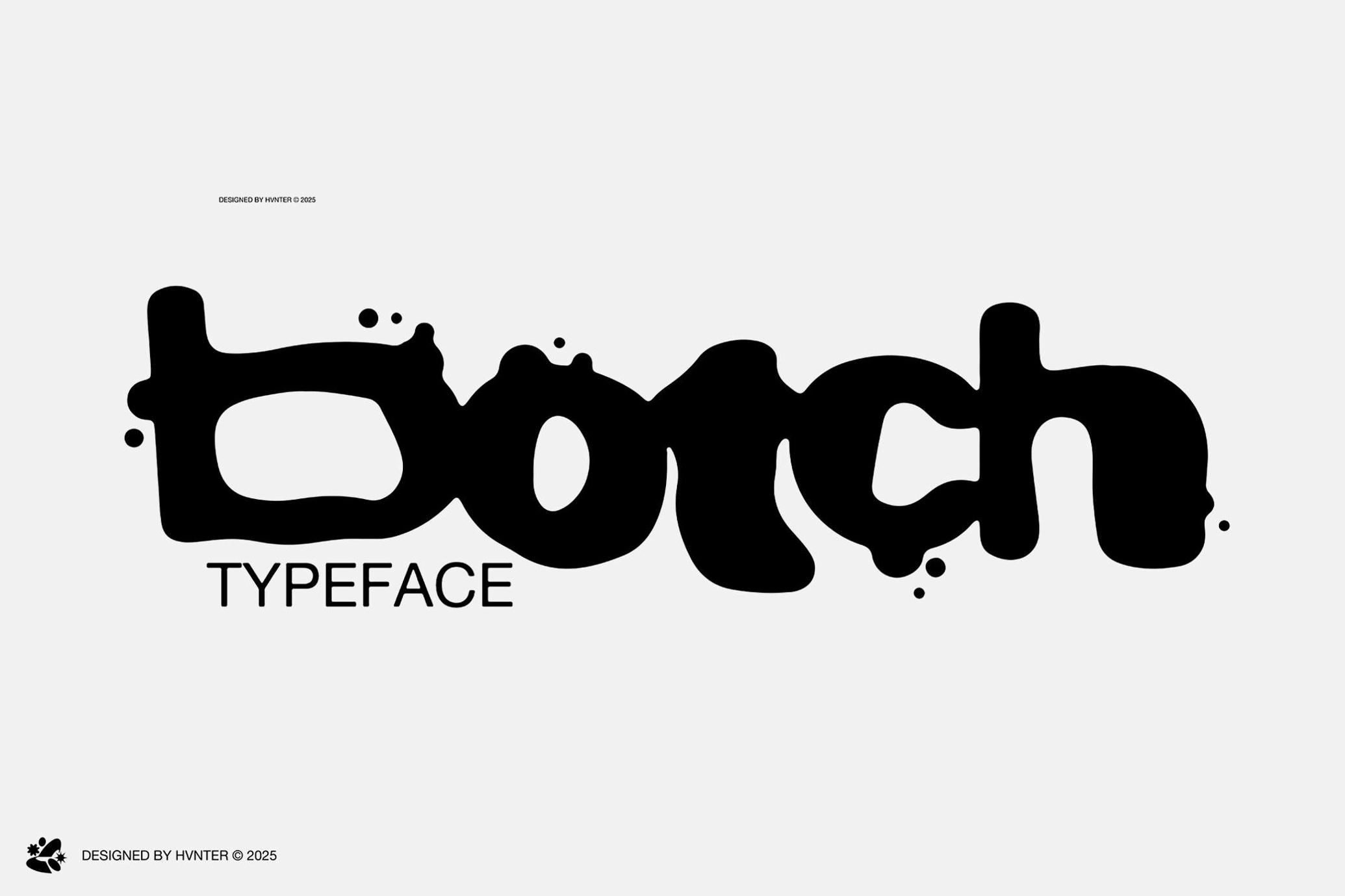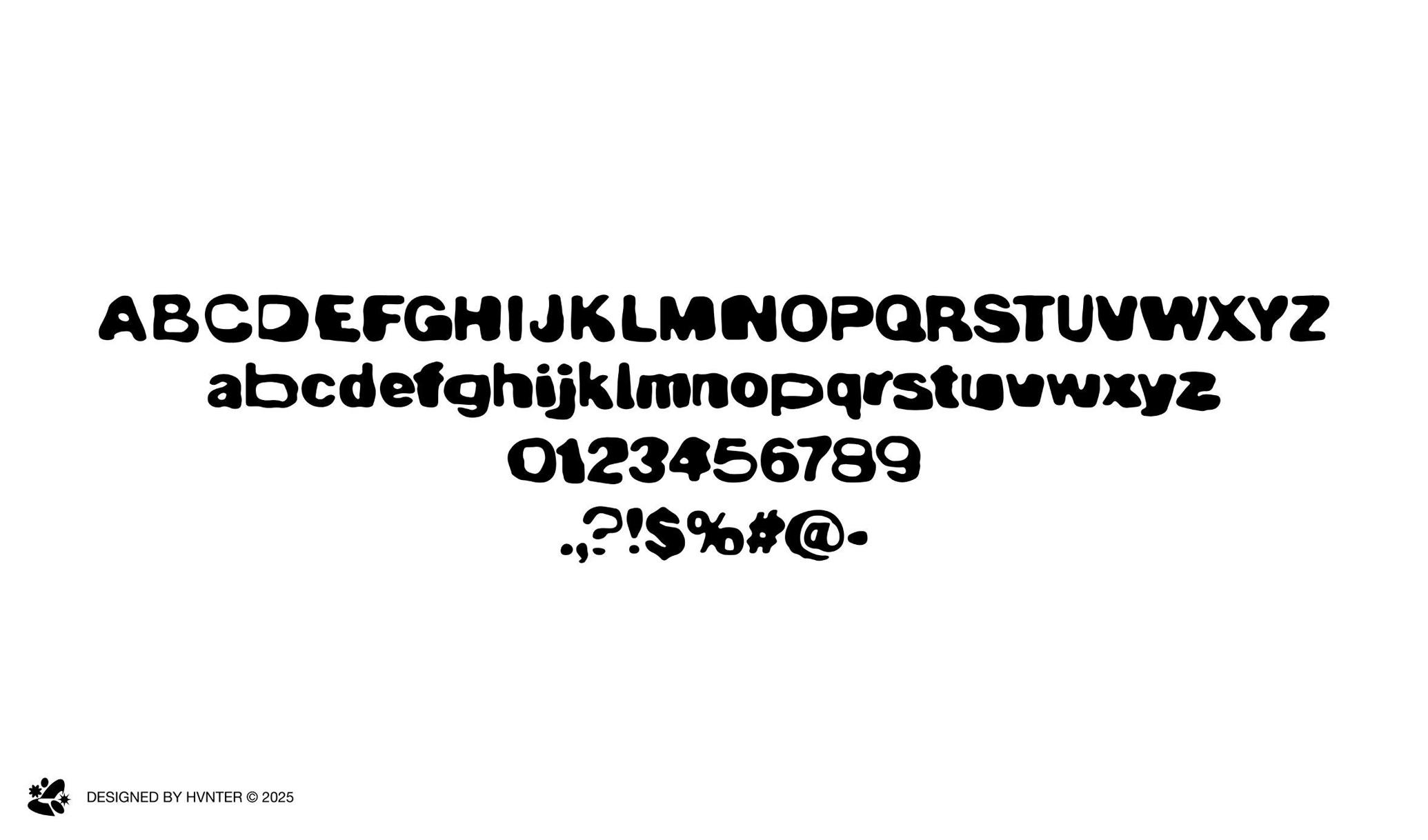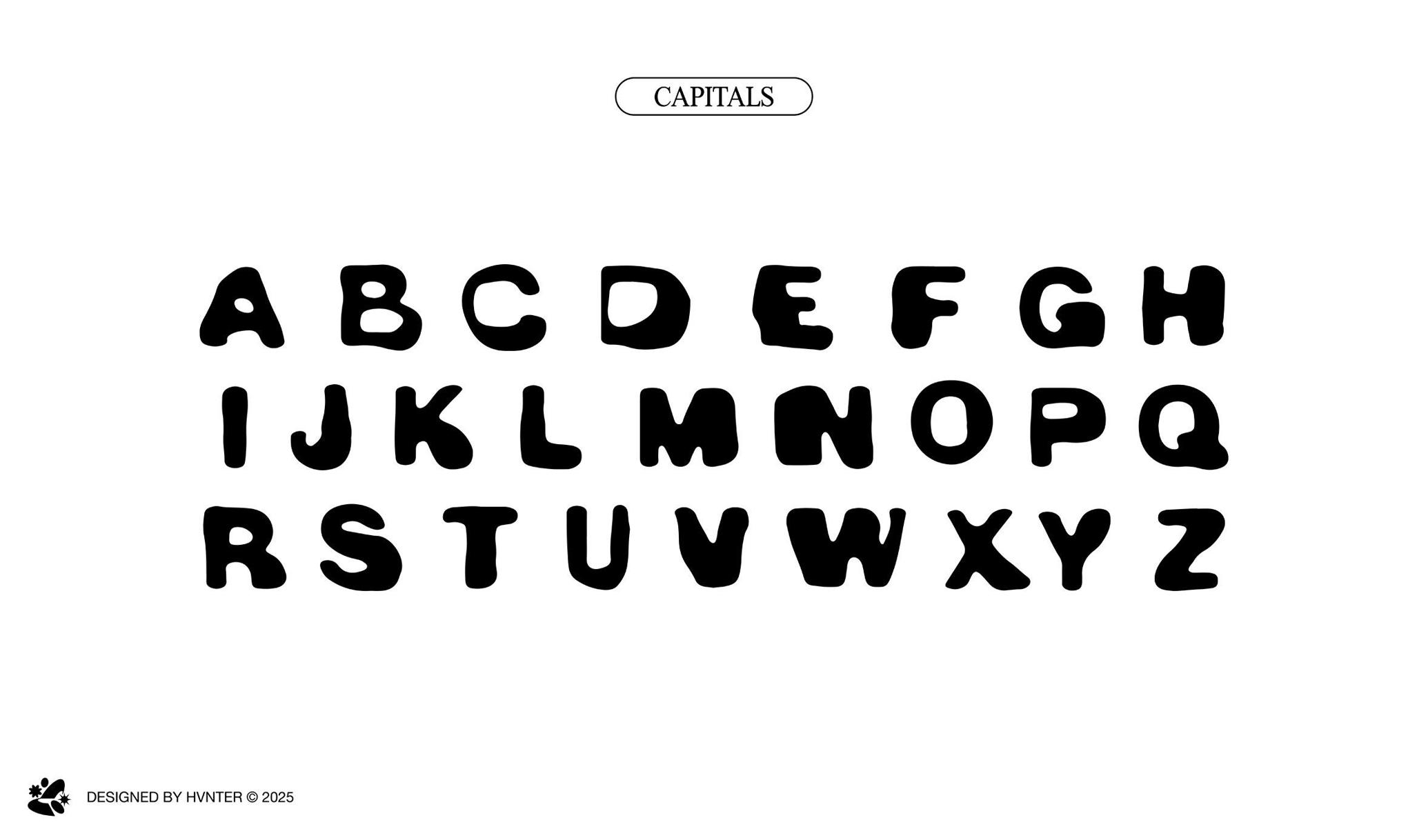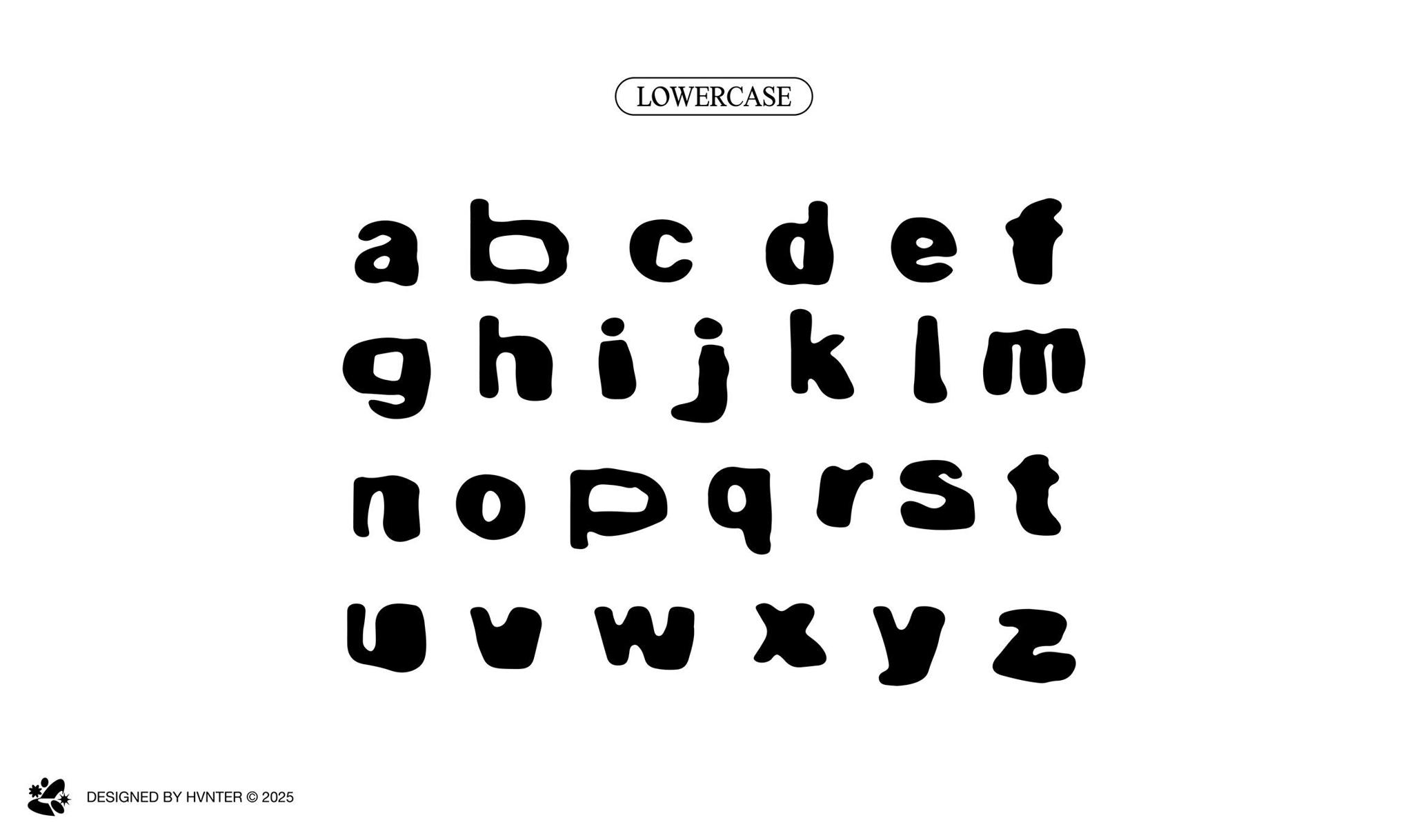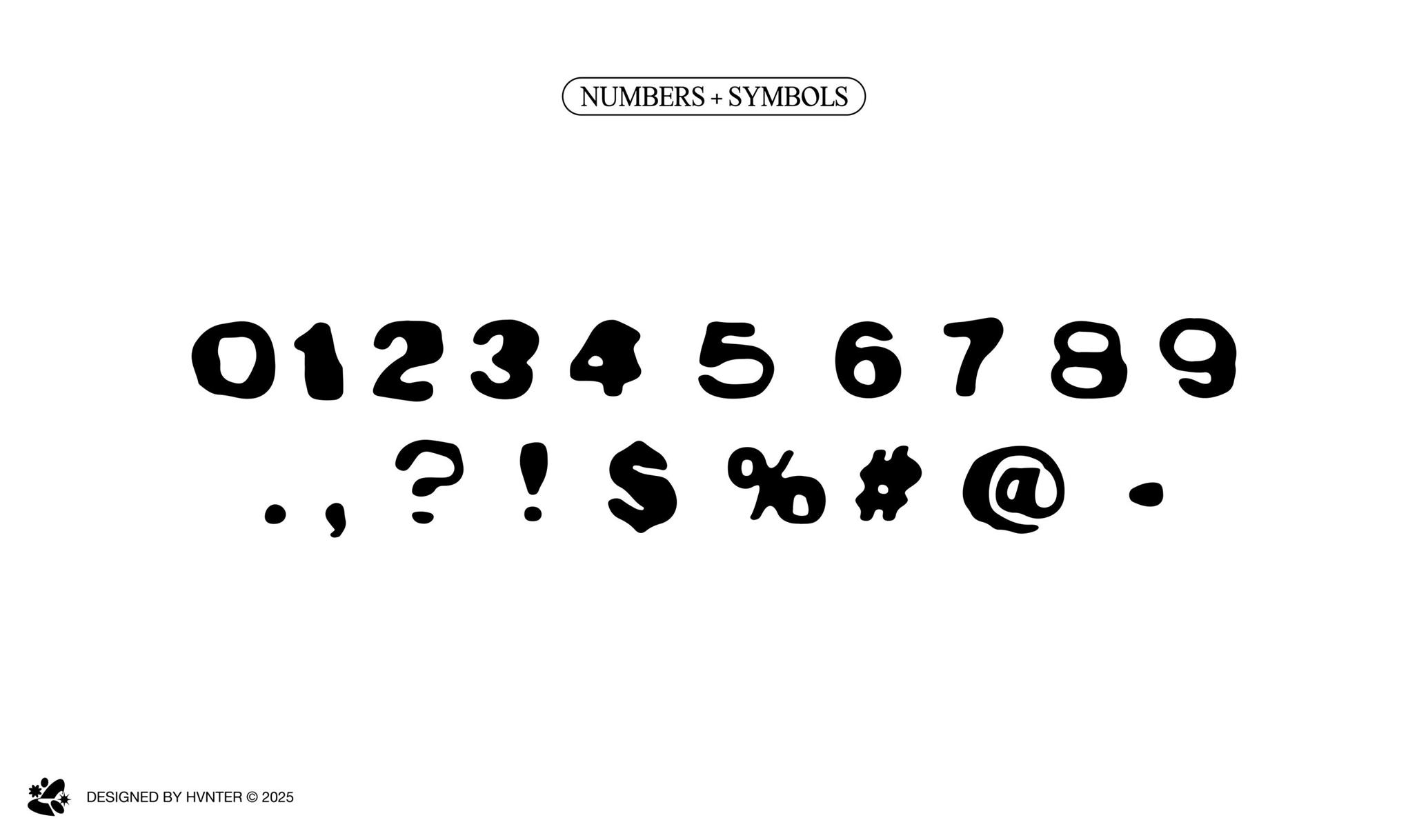
BOTCH Typeface
Botch is a bold, irregular display font with a strong sense of hand-crafted weirdness and lo-fi appeal. While chaotic in form, there's intention in its distortion. The letterforms are liquid and have a drippy feel, almost as if they're melting, ink-splotched, or inflated beyond their structural integrity. The font's unpredictable counterforms feel at home in DIY flyers, post-ironic gallery posters, music visuals, protest-style editorial work, streetwear, or cultural commentary. **Complete character set provided. **